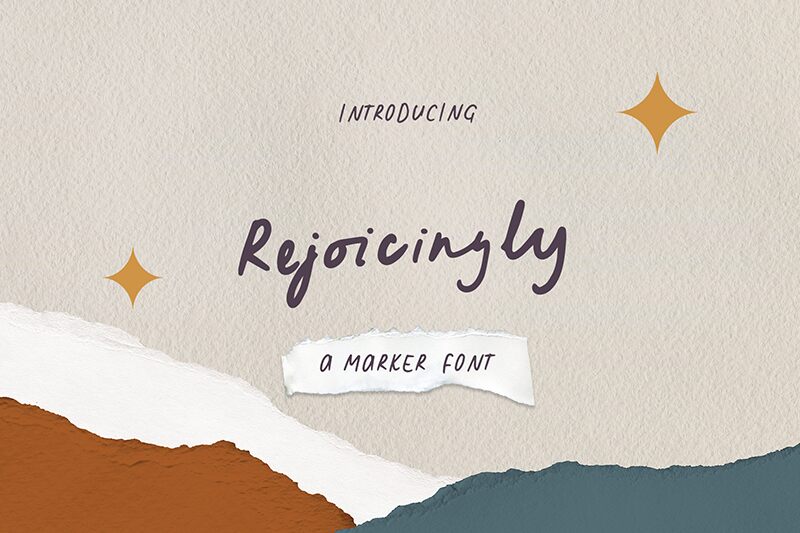
Rejoicingly Regular
Rejoicingly font by Get Studio captures a unique handwritten style that carries expressive and casual elegance. This free handwritten font seamlessly blends the essence of a personal touch with modern application potential, making each project truly special.